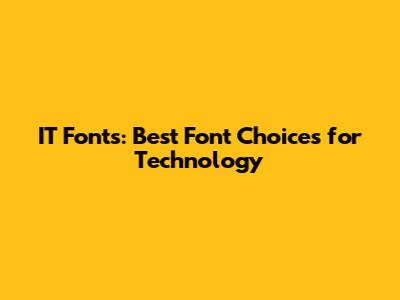
Choosing the right fonts for your information technology projects is super important, guys. It’s not just about making things look pretty; it’s about ensuring readability, conveying the right message, and making a professional impression. Think about it – the fonts you use can affect how users perceive your brand or interface. So, let's dive into the best font choices for technology and how to make the right pick.
Why Font Choice Matters in Information Technology
Font choice in IT isn't just a matter of aesthetics; it significantly impacts user experience and brand perception. In the tech world, where clarity and efficiency are paramount, the fonts you use play a crucial role. Think about the interfaces you interact with daily – from websites and apps to software programs and digital documents. Each one uses fonts to communicate information, guide users, and create a distinct visual identity. A well-chosen font can enhance readability, making it easier for users to navigate complex systems and understand critical information quickly. For example, a clean, sans-serif font like Arial or Helvetica is often used in user interfaces because of its simplicity and legibility, even at smaller sizes. These fonts ensure that text remains clear and uncluttered, reducing eye strain and improving overall user satisfaction. On the other hand, a poorly chosen font can lead to confusion, frustration, and even accessibility issues. Imagine trying to read a dense paragraph of code or a set of instructions in a highly decorative or overly stylized font – it would be a nightmare! The right font also contributes to brand recognition and reinforces a company's identity. Consistent use of specific fonts across all platforms and materials helps create a cohesive and professional image. Tech companies like Google and Apple have carefully selected and consistently used fonts that reflect their brand values – innovation, simplicity, and user-friendliness. By paying attention to font choice, IT professionals can significantly improve the usability, accessibility, and overall appeal of their products and services, ultimately leading to greater user engagement and success.
Readability and Legibility
Readability and legibility are key considerations when selecting fonts for IT projects. Readability refers to how easily a block of text can be read and understood, while legibility concerns how easily individual characters can be distinguished from one another. In the fast-paced world of technology, where users often scan content quickly, ensuring that your text is both readable and legible is crucial. Fonts with clear, open forms and adequate spacing between letters and lines enhance readability, allowing users to grasp information effortlessly. For example, fonts like Open Sans and Roboto are designed with readability in mind, featuring generous proportions and consistent letterforms that make them easy on the eyes, even in long passages of text. Legibility is particularly important in situations where users need to quickly identify specific characters or symbols, such as in code editors, data tables, or error messages. Fonts with distinct character shapes, such as a clear distinction between the letters i, l, and 1, prevent misinterpretation and reduce the risk of errors. Additionally, the size and weight of the font can significantly impact legibility. Using a font that is too small or too light can make it difficult to read, especially for users with visual impairments. Conversely, a font that is too large or too bold can appear overwhelming and distracting. By carefully considering readability and legibility, IT professionals can create user interfaces, documentation, and other materials that are both visually appealing and easy to understand, ultimately improving the user experience and minimizing frustration.
Professionalism and Branding
Professionalism and branding are integral to establishing credibility and creating a lasting impression in the IT sector. The fonts you choose play a significant role in conveying your company's values, personality, and level of expertise. A well-selected font can communicate trustworthiness, innovation, and attention to detail, while a poorly chosen font can undermine your message and damage your reputation. When selecting fonts for your brand, it's essential to consider your target audience and the overall tone you want to project. For example, a tech startup aiming to disrupt the market might opt for a modern, sans-serif font like Montserrat or Lato to convey a sense of innovation and forward-thinking. On the other hand, a more established company might choose a classic, serif font like Times New Roman or Georgia to project stability and reliability. Consistency is also crucial for maintaining a strong brand identity. Use the same fonts across all your marketing materials, website, and user interfaces to create a cohesive and recognizable brand image. This helps reinforce your brand message and build trust with your audience. Additionally, consider the psychological impact of different fonts. Serif fonts are often perceived as traditional and authoritative, while sans-serif fonts are seen as modern and approachable. Script fonts can add a touch of elegance and creativity, but they should be used sparingly, as they can be difficult to read in large blocks of text. By carefully considering professionalism and branding when selecting fonts, IT professionals can create a visual identity that resonates with their target audience and reinforces their company's values.
Top Font Categories for Technology
Choosing the right font is a big deal in tech. You want something that looks good but is also super readable and fits the vibe of your project. Here's a rundown of the top font categories that usually work great in the tech world.
Sans-Serif Fonts
Sans-serif fonts are often considered the go-to choice for digital interfaces and technology-related projects. Their clean, minimalist design makes them highly readable on screens, even at smaller sizes. Unlike serif fonts, which have small decorative strokes at the ends of letterforms, sans-serif fonts feature simple, unadorned shapes that are easy on the eyes and reduce visual clutter. This makes them ideal for websites, mobile apps, and software applications where clarity and efficiency are paramount. Some of the most popular sans-serif fonts in the tech world include Arial, Helvetica, Open Sans, and Roboto. Arial and Helvetica are classic choices that have been used extensively in user interfaces for decades, known for their versatility and legibility across different platforms and devices. Open Sans and Roboto are more modern options that have been specifically designed for screen readability, featuring generous proportions and consistent letterforms that enhance the user experience. When selecting a sans-serif font for your project, consider the overall tone and style you want to convey. Some sans-serif fonts, like Futura, have a more geometric and futuristic feel, while others, like Calibri, are more rounded and approachable. By carefully choosing a sans-serif font that aligns with your brand and target audience, you can create a visually appealing and user-friendly interface that enhances the overall user experience.
Serif Fonts
Serif fonts, characterized by the small decorative strokes at the end of letterforms, evoke a sense of tradition, authority, and sophistication. While sans-serif fonts are often preferred for digital interfaces, serif fonts can be an excellent choice for certain types of technology-related projects, particularly those that require a more formal or classic look. For example, serif fonts are commonly used in reports, academic papers, and other documents where readability and credibility are essential. They can also be effective in creating a sense of elegance and refinement in branding materials for high-end technology products or services. Some popular serif fonts for technology include Times New Roman, Georgia, and Baskerville. Times New Roman is a classic choice that has been used extensively in print media for decades, known for its readability and versatility. Georgia is a more modern serif font that has been specifically designed for screen readability, featuring larger x-height and wider proportions that make it easier to read on digital devices. Baskerville is an elegant and refined serif font that is often used in high-end branding and marketing materials. When selecting a serif font for your project, consider the overall tone and style you want to convey. Serif fonts can add a touch of formality and sophistication to your design, but they can also appear dated or stuffy if not used carefully. By choosing a serif font that is both readable and visually appealing, you can create a professional and polished look that enhances the credibility and impact of your message.
Monospace Fonts
Monospace fonts are a unique category where each character occupies the same horizontal space. This characteristic makes them highly suitable for specific applications within the IT field, most notably in coding environments and data representation. In coding, the consistent width of each character allows for easy alignment of code blocks, making it simpler to read and debug. Monospace fonts ensure that indentation levels are clearly visible, and the structure of the code is immediately apparent. Common monospace fonts used by developers include Courier New, Consolas, and Monaco. Courier New is a classic choice, widely available and recognized, providing a familiar and reliable option. Consolas is a more modern monospace font designed by Microsoft, specifically optimized for on-screen readability, reducing eye strain during long coding sessions. Monaco, often associated with macOS, is another popular choice known for its clarity and clean design. Beyond coding, monospace fonts are also valuable in situations where data alignment is critical, such as in financial reports or tabular data displays. The uniform character width ensures that columns line up perfectly, enhancing readability and preventing misinterpretation of data. While not typically used for general text in user interfaces due to their somewhat technical appearance, monospace fonts play a vital role in specialized areas of information technology where precision and clarity are paramount.
Tips for Choosing the Right Font
Alright, so you know the categories, but how do you actually pick the right font? Here are some tips to help you make the best choice.
Consider Your Audience
When selecting fonts for any project, it’s super important to consider your audience. Who are you trying to reach, and what are their preferences and expectations? The fonts you choose should resonate with your target audience and align with their tastes and sensibilities. For example, if you’re designing a website for a tech-savvy audience, you might opt for a modern, sans-serif font like Roboto or Open Sans to convey a sense of innovation and forward-thinking. These fonts are clean, minimalist, and easy to read on screens, making them ideal for users who are accustomed to digital interfaces. On the other hand, if you’re creating a marketing campaign for a more traditional audience, you might choose a classic, serif font like Times New Roman or Georgia to project a sense of stability and trustworthiness. Serif fonts are often perceived as more formal and authoritative, making them a good choice for businesses that want to convey a sense of tradition and reliability. It’s also important to consider the age, education level, and cultural background of your audience. For example, if you’re designing materials for children, you might choose a playful, hand-drawn font that is fun and engaging. If you’re creating content for an international audience, you’ll need to ensure that your fonts support multiple languages and character sets. By carefully considering your audience, you can select fonts that are both visually appealing and culturally appropriate, ultimately maximizing the impact of your message.
Test Different Fonts
Don't just pick a font and run with it, guys! Testing different fonts is crucial to ensure that your final choice is effective and meets your project's needs. What looks good in theory might not always translate well in practice, so it’s essential to experiment and see how different fonts perform in various contexts. Start by selecting a few fonts that you think might be a good fit for your project. Consider factors such as readability, legibility, and overall aesthetic appeal. Once you have a shortlist of potential fonts, test them out in different sizes, weights, and styles. See how they look in headlines, body text, and captions. Try them out on different devices and screen resolutions to ensure that they are legible and readable across all platforms. Get feedback from others, especially from members of your target audience. Ask them what they think of the fonts and whether they find them easy to read and visually appealing. Pay attention to any issues or concerns that they raise. Use online tools and resources to evaluate the readability and accessibility of your fonts. There are many websites and apps that can help you assess factors such as contrast ratio, font size, and line height to ensure that your fonts are accessible to users with visual impairments. By thoroughly testing different fonts and gathering feedback from others, you can make an informed decision and choose the best font for your project.